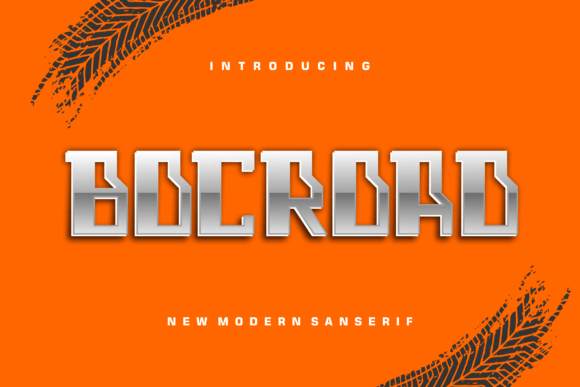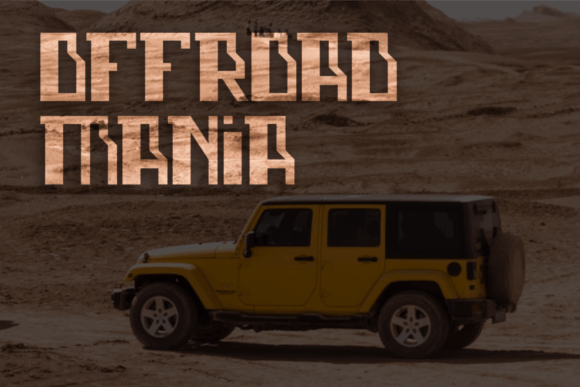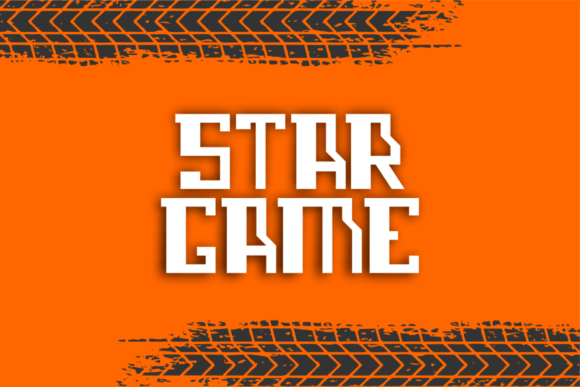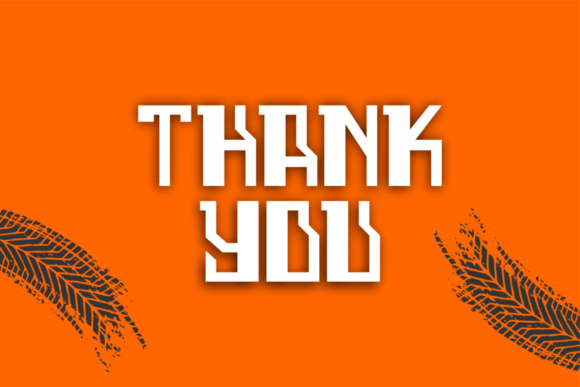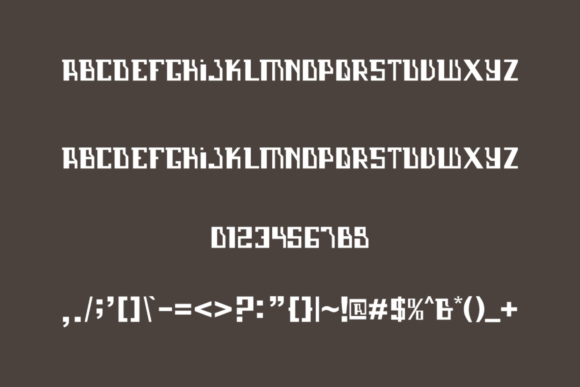
Bocroad
Bocroad: A Modern and Bold Slab Serif Font
Bocroad is a modern, bold, and authentic slab serif font suitable for any branding project. Its versatility makes it perfect for logos, t-shirt printing, export designs, and many more applications. This font looks outstanding in a wide range of contexts, making it a valuable addition to any designer’s toolkit.
Key Features of Bocroad
• Modern Design: Offers a contemporary look suitable for various applications.
• Bold Style: Features thick, impactful letterforms that command attention.
• Authentic Character: Brings a genuine and unique feel to designs.
• Versatile Application: Ideal for both print and digital media projects.
Ideal Uses for Bocroad
Bocroad’s unique characteristics make it particularly well-suited for:
When incorporating Bocroad into your designs, consider these tips:
• Use for headlines or short blocks of text to showcase its bold style.
• Utilize its modern appearance across various creative projects to enhance visual appeal.
Bocroad is an excellent choice for designers looking to add a modern and bold slab serif font to their typographic toolkit. Its ability to enhance various design projects makes it stand out in the world of typography. Whether you’re working on branding, creating apparel designs, or developing content that requires a strong visual impact, Bocroad offers the perfect blend of style and functionality.
Furthermore, Bocroad’s unique design allows it to shine in various contexts. From contemporary layouts to more traditional designs that need a touch of modernity, this font can elevate your projects. Its striking yet functional style works particularly well in designs that require a thoughtful and engaging mood.
In conclusion, Bocroad is a font that truly captures the essence of modern design and impact in typography. Its ability to work well in both minimalist projects and more elaborate layouts showcases its flexibility. For those looking to add a touch of bold charm to their work, Bocroad can enhance themed creations with its distinctive style. It’s the perfect choice for designers seeking to make a strong, stylish impact across a wide range of creative projects.